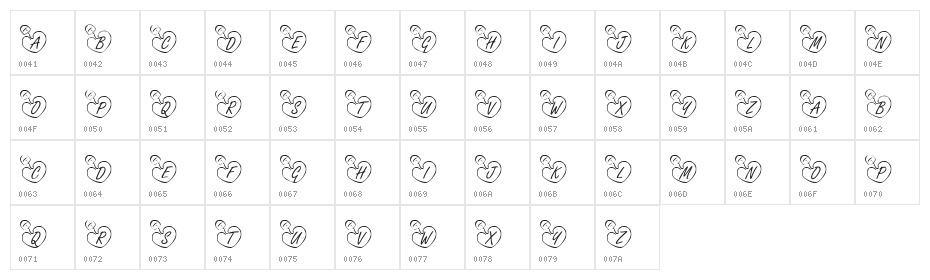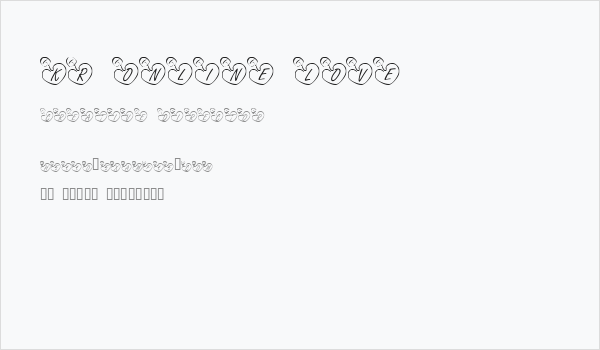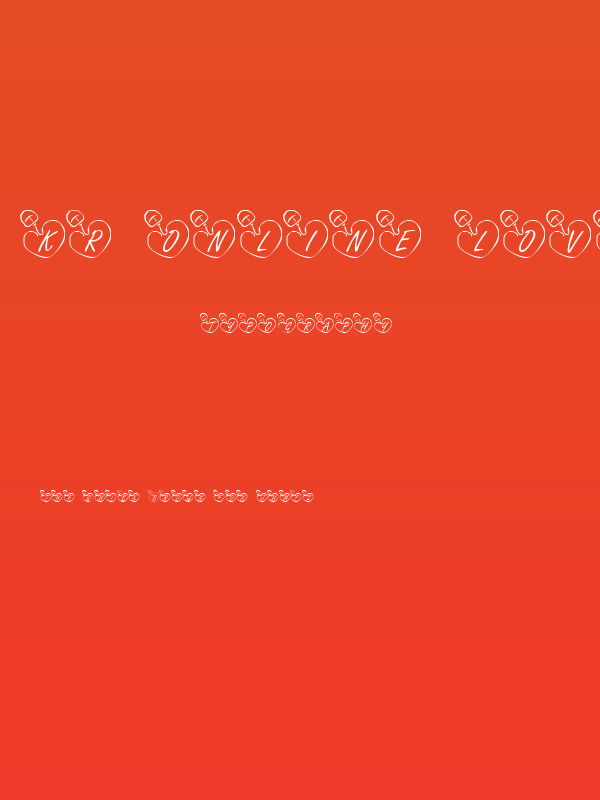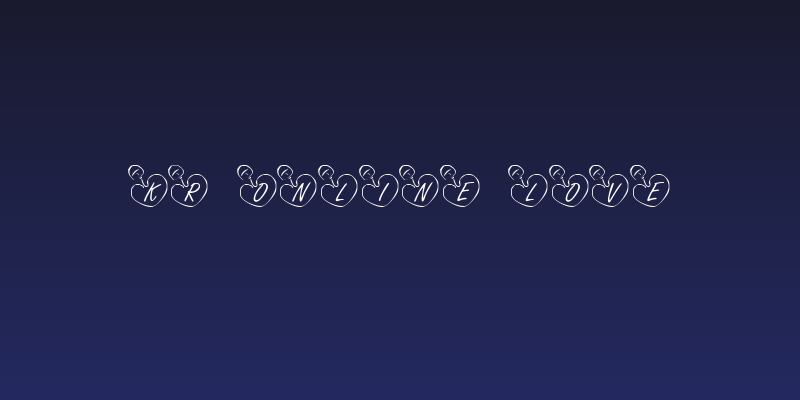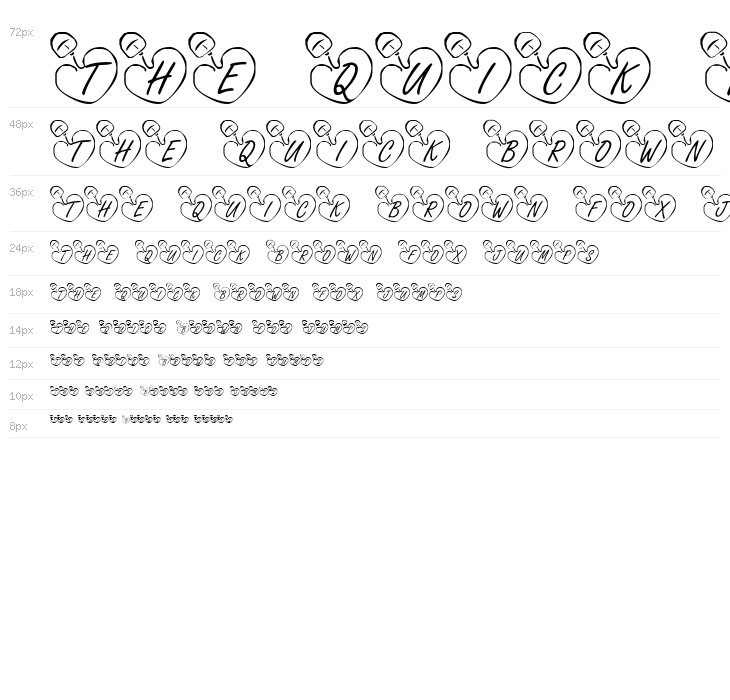
KR Online Love Font
KR Online Love Description
This decorative font features each letter encapsulated within a heart shape, giving it a playful and romantic appearance. The letters are uppercase and styled with a slight script-like flair, adding a touch of elegance. The heart shapes are consistent in size, creating a uniform look across the alphabet. This font is ideal for projects that require a whimsical or affectionate tone, such as wedding invitations, Valentine's Day cards, or love-themed branding. The design is both charming and eye-catching, making it suitable for various creative applications.
| Proposed Projects | Wedding invitations, Valentine's Day cards, love-themed branding, playful designs. |